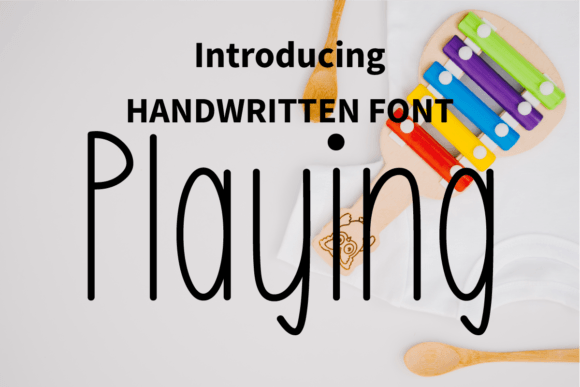
Playing Font Download – Simple Friendly Handwritten Script
The Playing Font download is a simple handwritten script designed to brighten up your projects. With its friendly and quirky strokes, this typeface adds warmth and personality to every design. Because of its versatility, it is perfect for logos, invitations, advertisements, and more.
Simple and Friendly Style
Playing features smooth, balanced letters with a casual rhythm. As a result, it feels approachable and whimsical. In addition, its friendly strokes ensure clarity across different formats.
From wedding invitations to greeting notes, this font gives your words a personal and elegant touch. It adds charm that makes each message feel heartfelt. Therefore, it is a strong choice for stationery designs.
Playing Font Download for Posters and Quotes
The PlayingFont download also works beautifully for posters, magazines, and inspirational quotes. Its whimsical strokes grab attention while staying easy to read.
Logos and Branding Applications
Logos, product labels, and packaging benefit from the approachable style of Playing. It helps brands look stylish while keeping a welcoming personality. Moreover, it adapts across print and digital designs.
Versatility for Ads and Creative Projects
Advertisements, banners, and creative campaigns stand out with this handwritten script. Because it combines clarity with charm, it works in both professional and casual contexts.
Why Add This Handwritten Script to Your Collection?
The PlayingFont download is simple, playful, and flexible. In other words, it works equally well for personal crafts and professional branding. Finally, it is a font that adds joy, personality, and charm to every project.